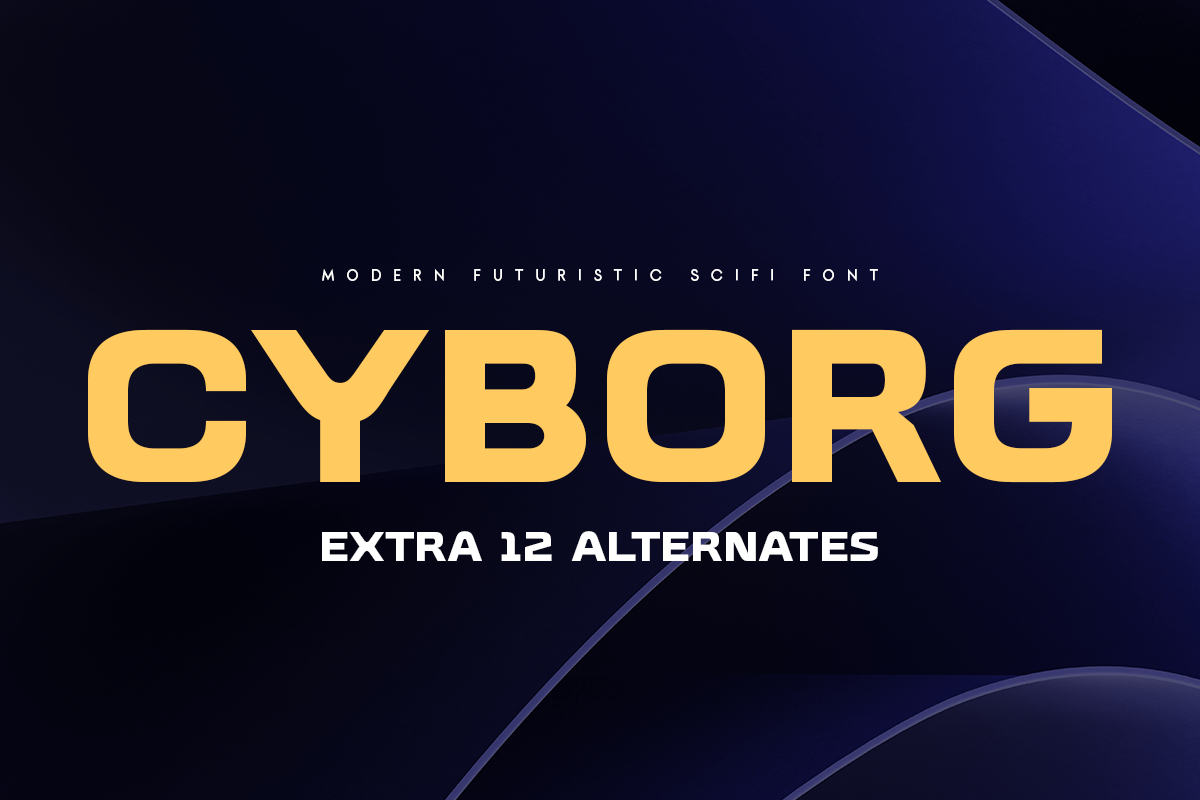
CYBORG - Modern Futuristic Font
Unleash cutting-edge typography with Cyborg, the ultimate futuristic sci-fi font for technology and modern designs. Cyborg delivers sleek, futuristic characters specifically crafted for sci-fi, modern, and technology-themed projects. Its unique aesthetic makes your typography stand out, bringing a tech-inspired feel that's perfect for robotic themes, technology applications, film projects, and sci-fi designs. Features: Sleek, futuristic characters designed for technology-themed creativity Availa...